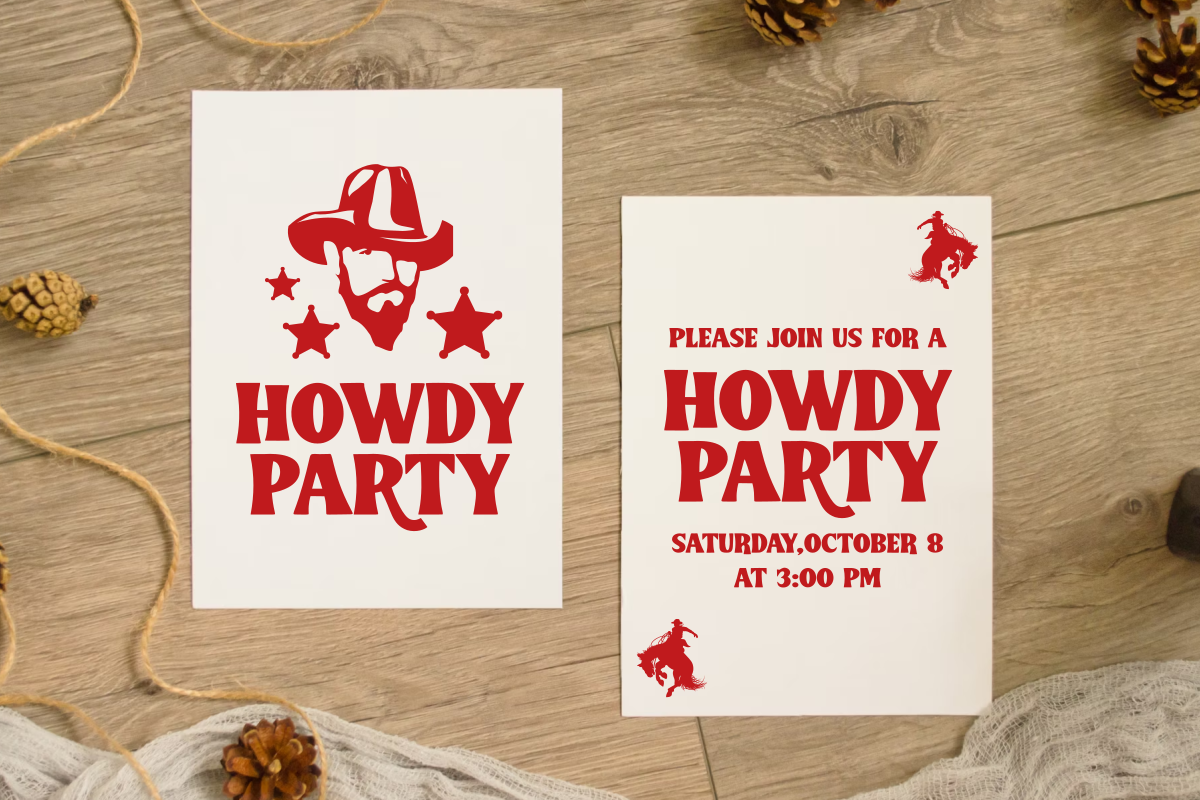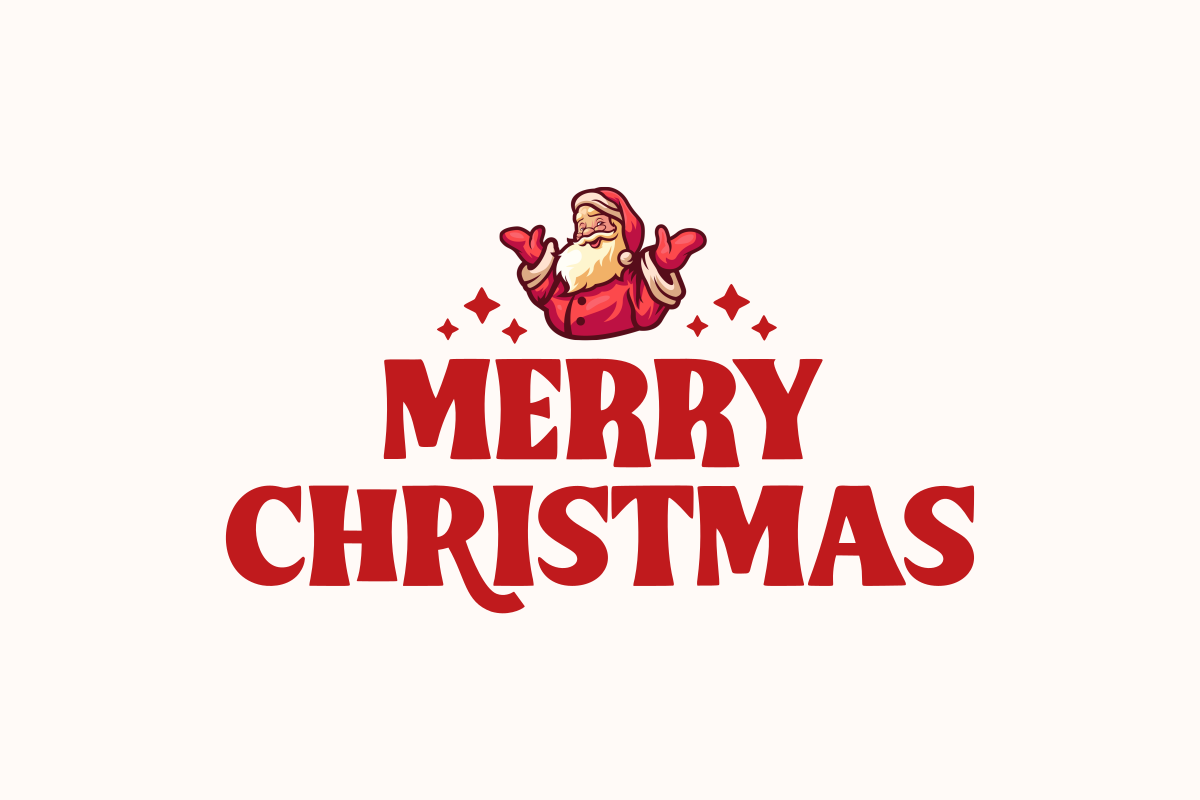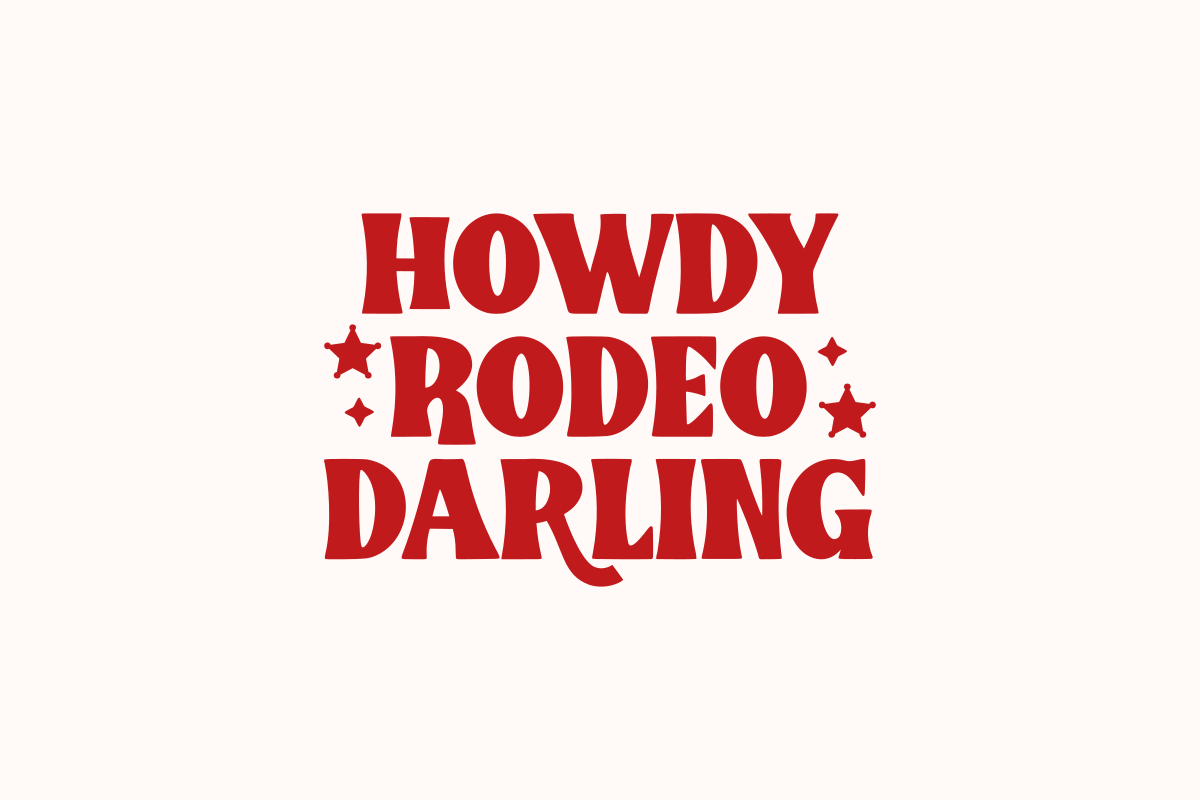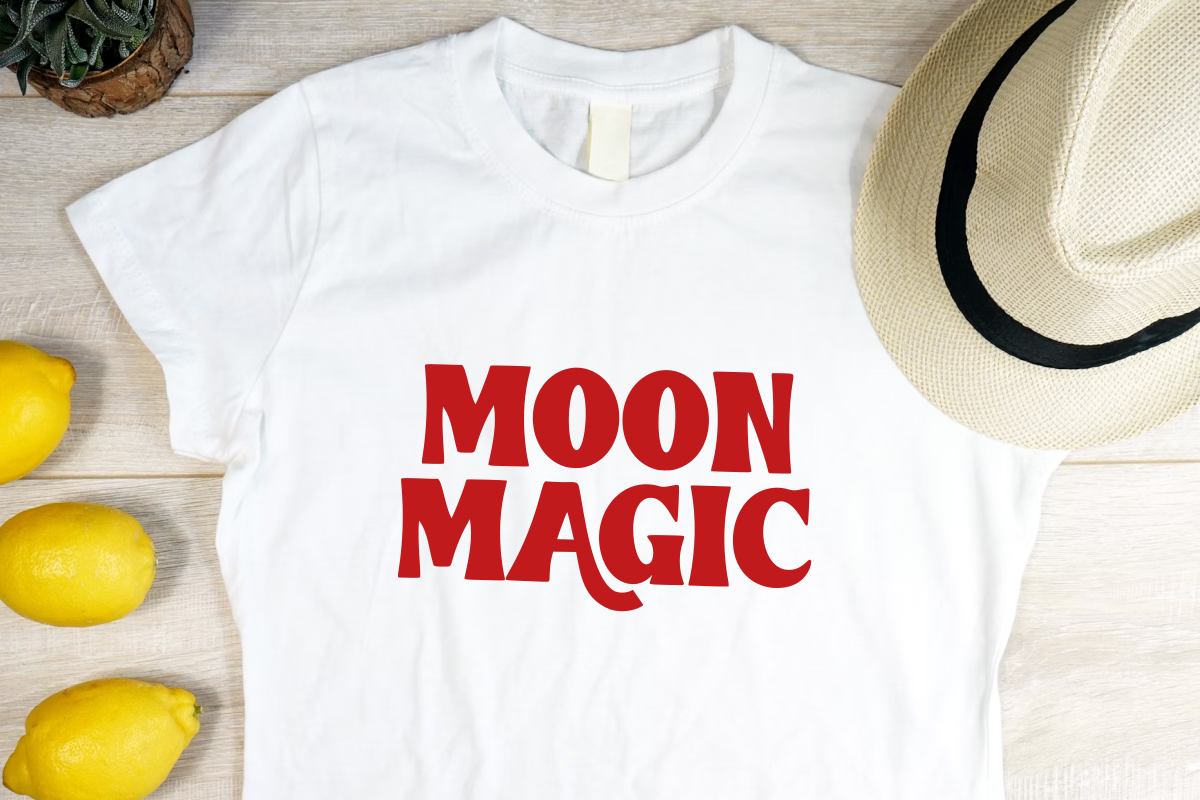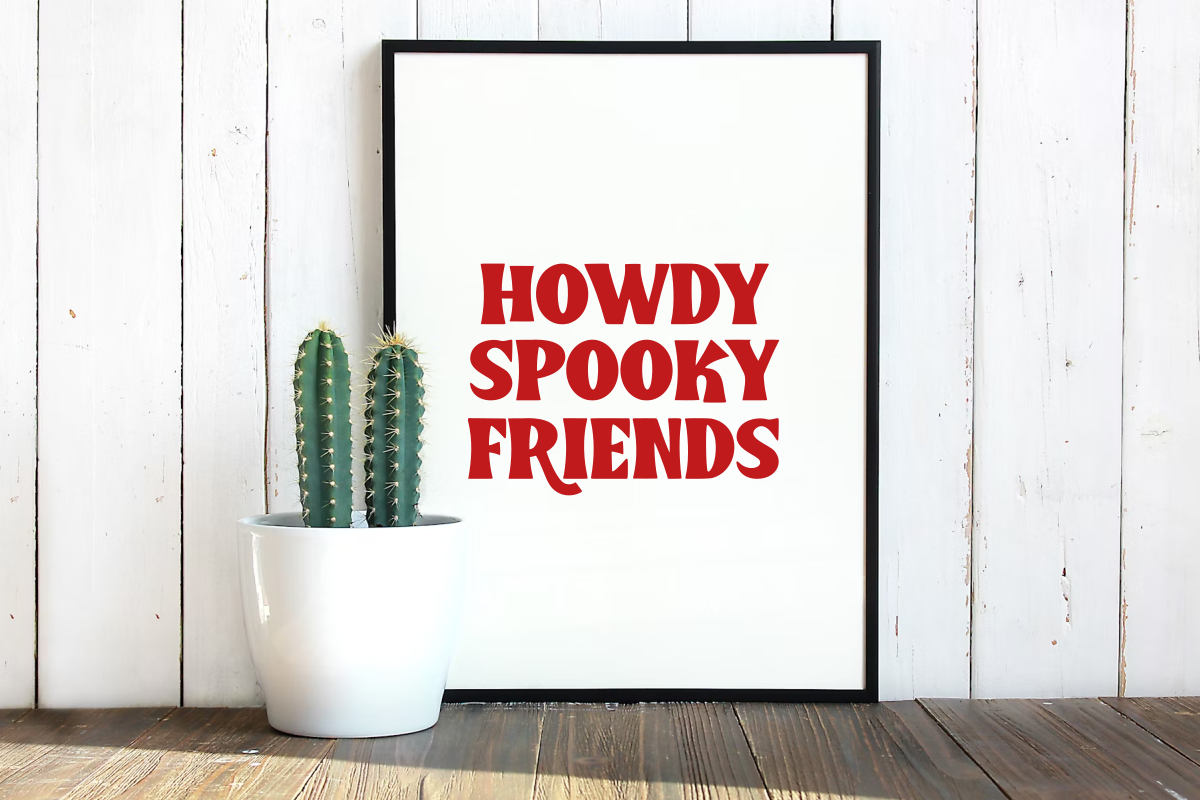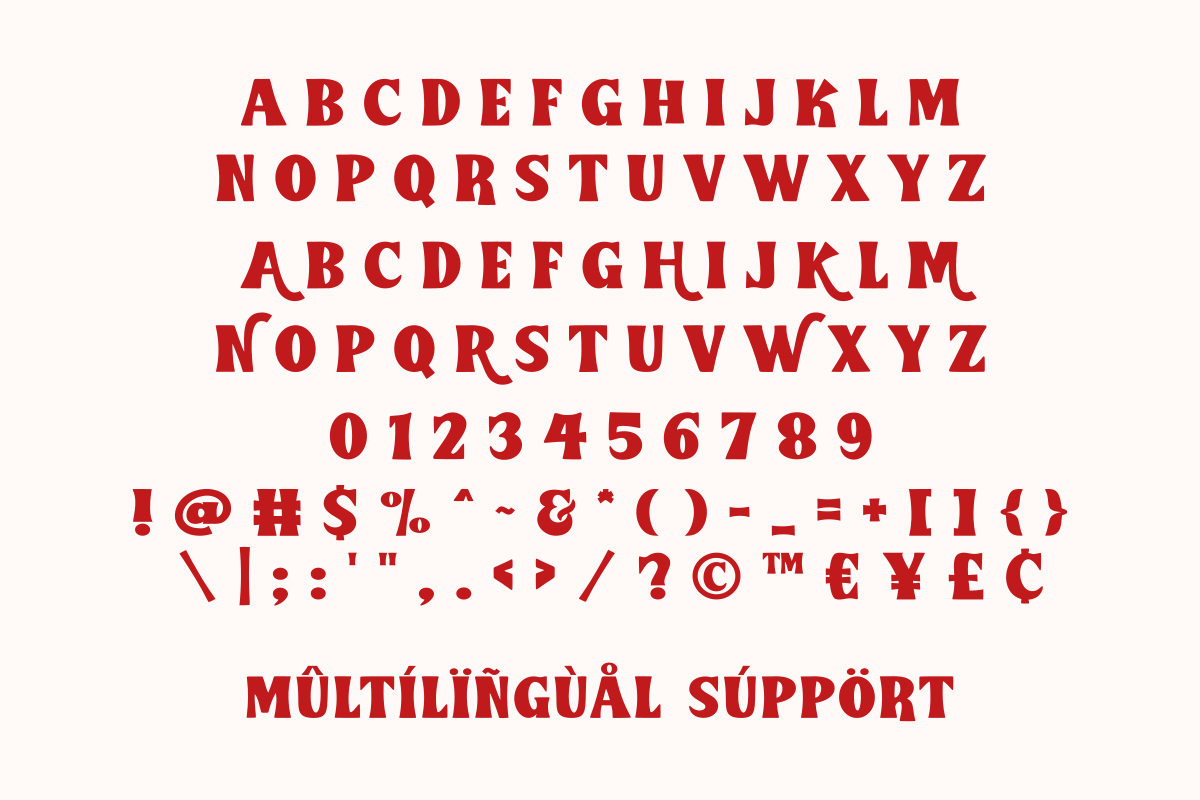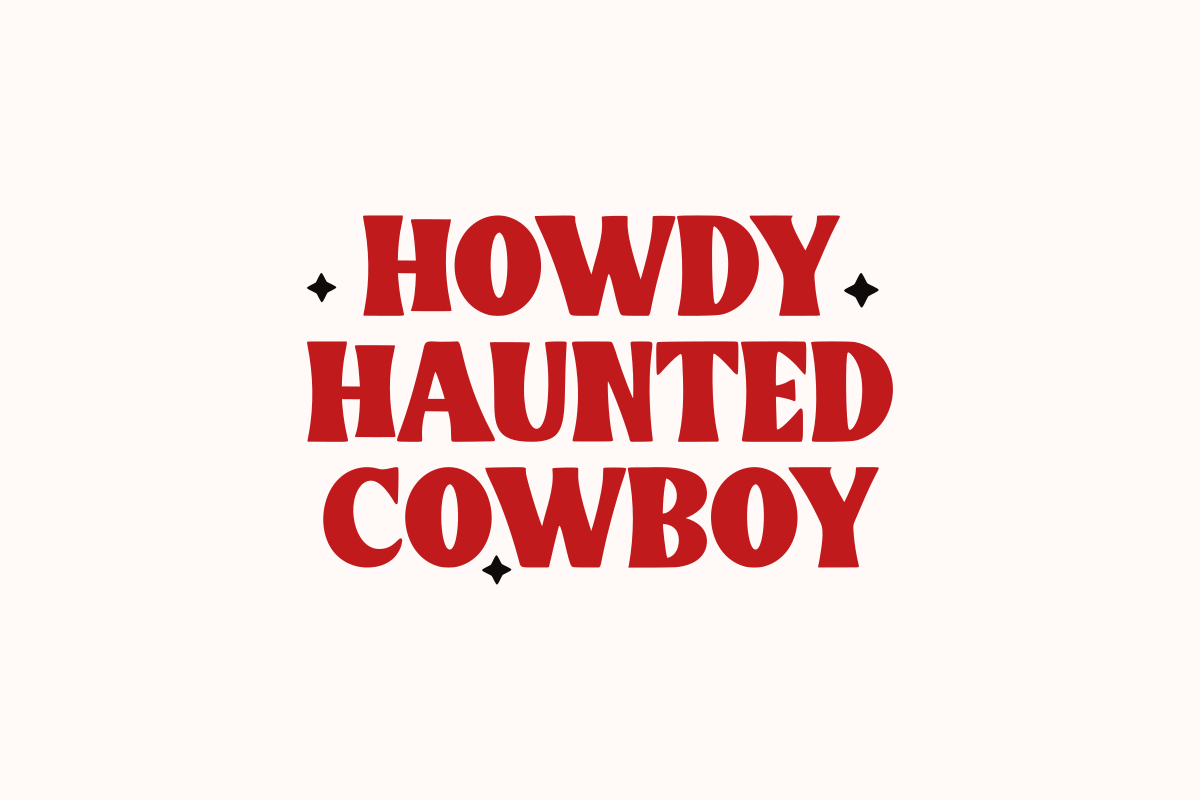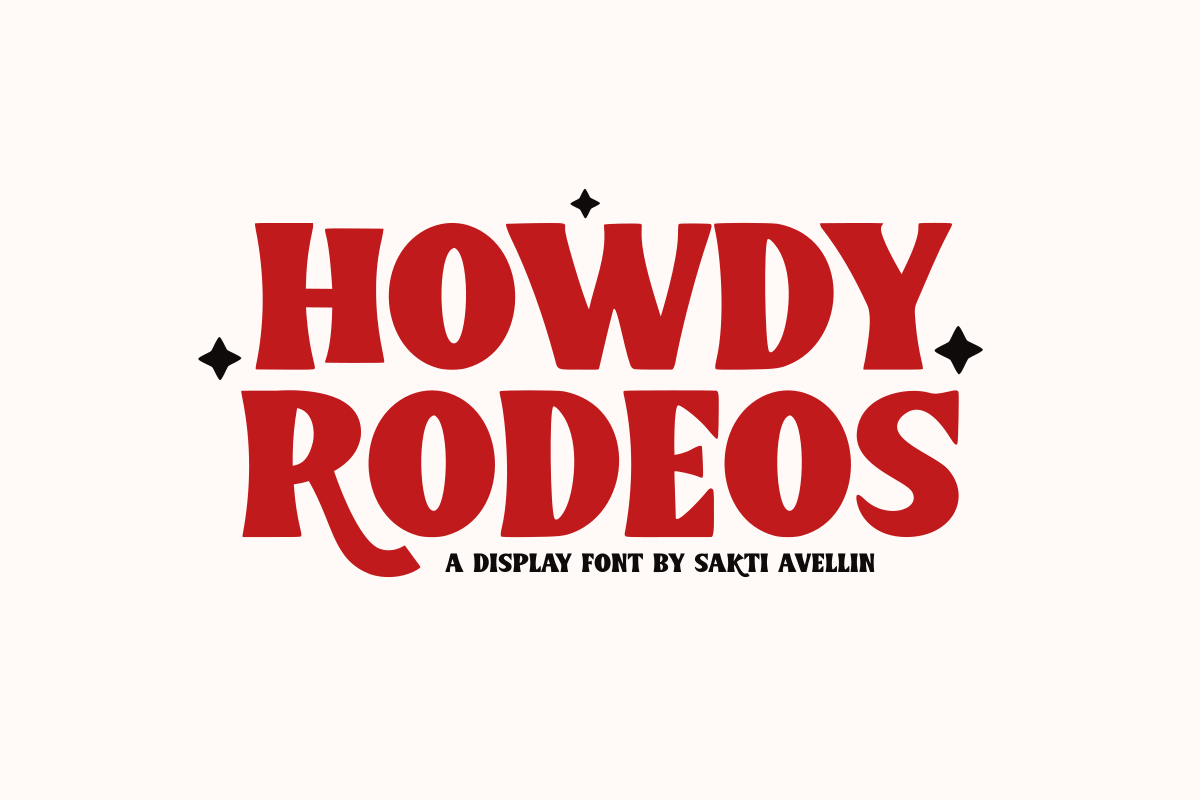
Howdy Rodeos - Display Serif Font
Howdy Rodeos is a bold, striking, and genuinely Western-inspired display font that channels the rugged, adventurous spirit of the wild west. This vintage font features strong serifs and a commanding presence, making it perfect for western branding, t-shirt designs, cowboy logos, saloon signage, country music posters, and rustic event invitations. Its thickness and unique style ensure maximum impact as a powerful retro display typeface, ideal for projects needing a robust, classic, and slightly modern frontier aesthetic. Say "Howdy" to exceptional design with this iconic country font!